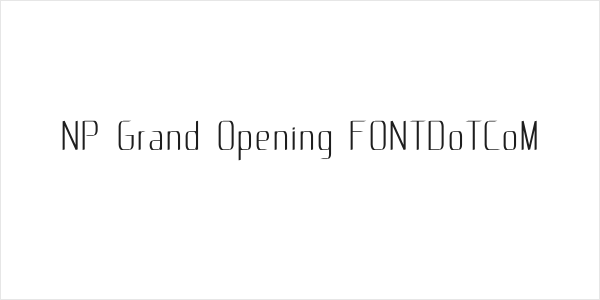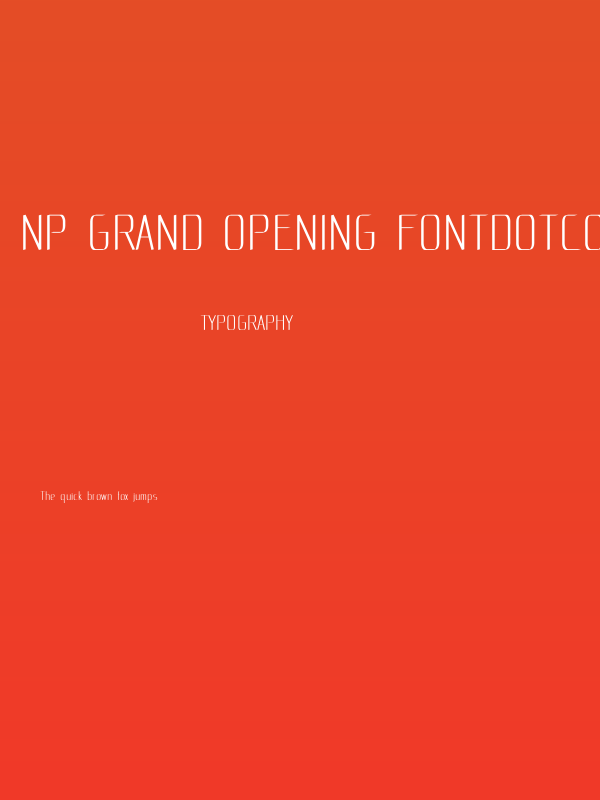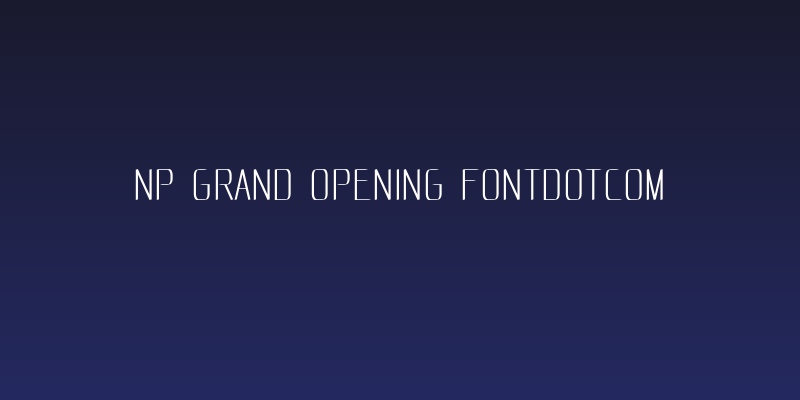
NP Grand Opening F0NTDoTCoM Font
NP Grand Opening F0NTDoTCoM Description
This font features a modern and sleek design with elongated, narrow characters that convey a sense of elegance and sophistication. The uppercase letters are tall and slightly condensed, giving them a refined appearance. The lowercase letters maintain a consistent style, with a slight curvature that adds a touch of softness to the overall look. The numerals are distinct and easy to read, with a uniform height that complements the letterforms. Special characters are well-integrated, maintaining the font's clean and contemporary aesthetic. The font's thin strokes and minimal contrast make it ideal for projects that require a modern and stylish touch.
Use CaseHeadlines, Logos, Branding
Proposed ProjectsIdeal for branding, fashion magazines, luxury product packaging, and modern website headers.